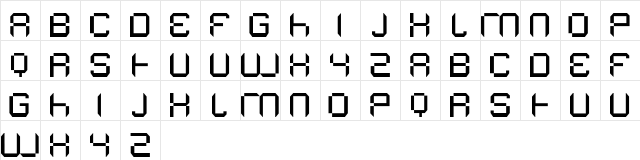
AKEI Regular Font Preview
AKEI Regular
AKEI Regular Font Details
Design Context for AKEI Typeface
AKEI is a composed and adaptable typeface that performs quietly and consistently across a wide range of design contexts.